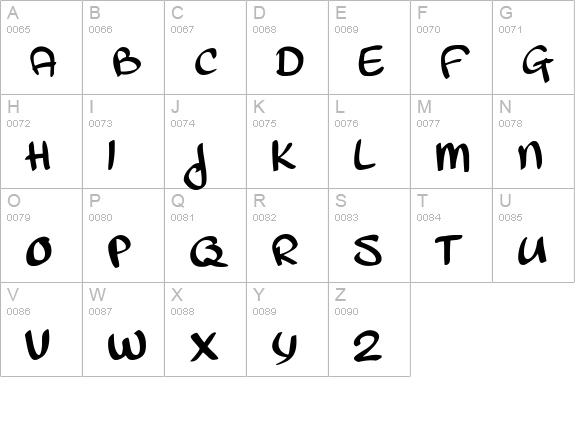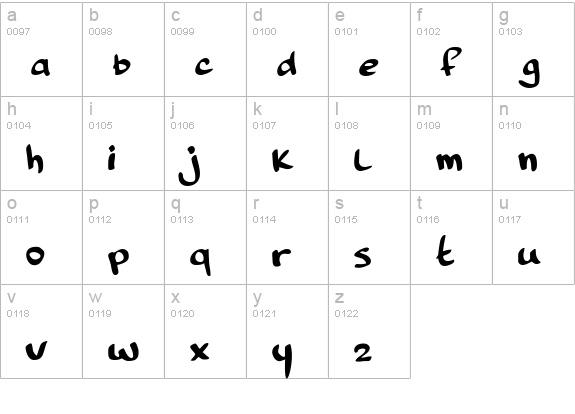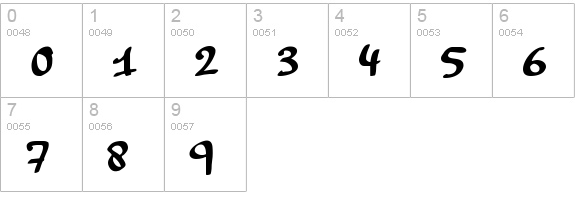
Pinda Font Details
Introducing Pinda Font, a stylish and versatile typeface that is sure to make a statement in your design projects. With its modern and clean lines, Pinda Font is perfect for a wide range of applications, from branding and logo design to packaging and invitations. One of the best things about Pinda Font is that it is free. Yes, you read that right! This amazing font is available to download for free at FontsMarket.com. You can easily access and use it in your personal and commercial projects without any restrictions or limitations. Pinda Font features a wide range of characters, including uppercase and lowercase letters, numerals, punctuation marks, and special symbols. Its bold and distinct style will instantly grab the attention of your audience and add a touch of sophistication to your designs. Whether you're designing a sleek and modern website, creating eye-catching social media graphics, or crafting elegant wedding invitations, Pinda Font has got you covered. Its versatility allows it to adapt to various design styles and themes, making it a go-to choice for designers and creatives alike. The carefully designed curves and smooth lines of Pinda Font create a sense of harmony and balance, ensuring that your text stands out and is easy to read. Its legibility makes it suitable for both large and small-scale projects, ensuring that your message is conveyed effectively. What sets Pinda Font apart is its ability to convey emotion and personality. Its unique character and charm add a touch of individuality to your designs, making them truly memorable. From playful and vibrant to sophisticated and elegant, Pinda Font can adapt to your desired tone and mood effortlessly. So why wait? Download Pinda Font for free at FontsMarket.com and elevate your design projects to new heights. With its modern and versatile style, this font is sure to become a staple in your font collection. Don't miss out on this amazing opportunity to enhance your designs with Pinda Font's timeless appeal and undeniable quality.